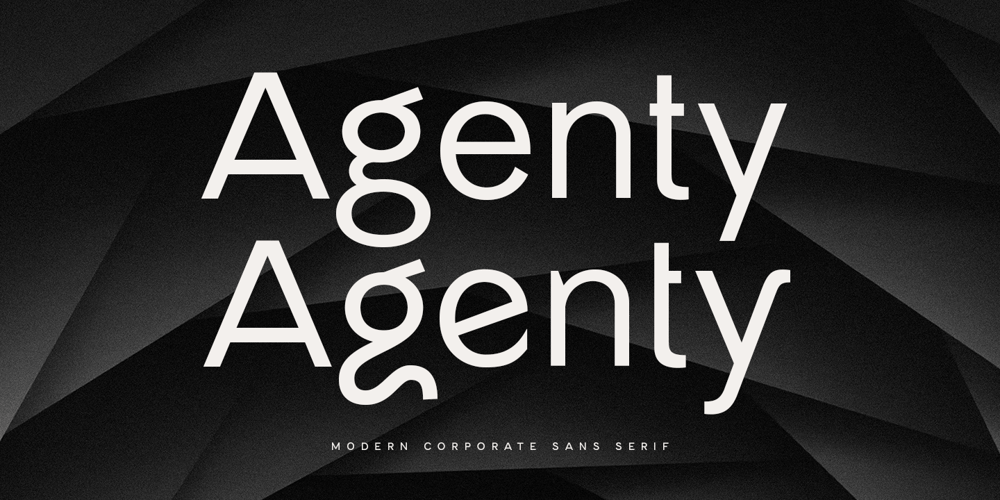
Agenty Font Family was designed by Zamroni Hamzah and published by Sensatype Studio. Agenty contains 2 styles and family package options. Agenty is a Modern Corporate Sans Serif Font is a Corporate well-balanced modern font with a minimalist, unique, and iconic sans serif, font that you can combine to get any variations and unique shapes easily just in seconds with choose alternates of them and 2 weight for Regular and Bold. It is a sans serif font with minimalist style that perfect for branding projects, logo, poster designs, social media posts, advertisements, product packaging, product designs, label, photography, watermark, invitation, stationery, and any projects, it makes with a high level of legibility.What’s Included: 2 Weights Agenty font, Regular & Bold Alternate Characters Character set A-Z Numerals & Punctuation Accented Characters (West Europe) Works on PC & Mac Recommended using Adobe Illustrator or Adobe Photoshop. Wish you enjoy our font. ๐